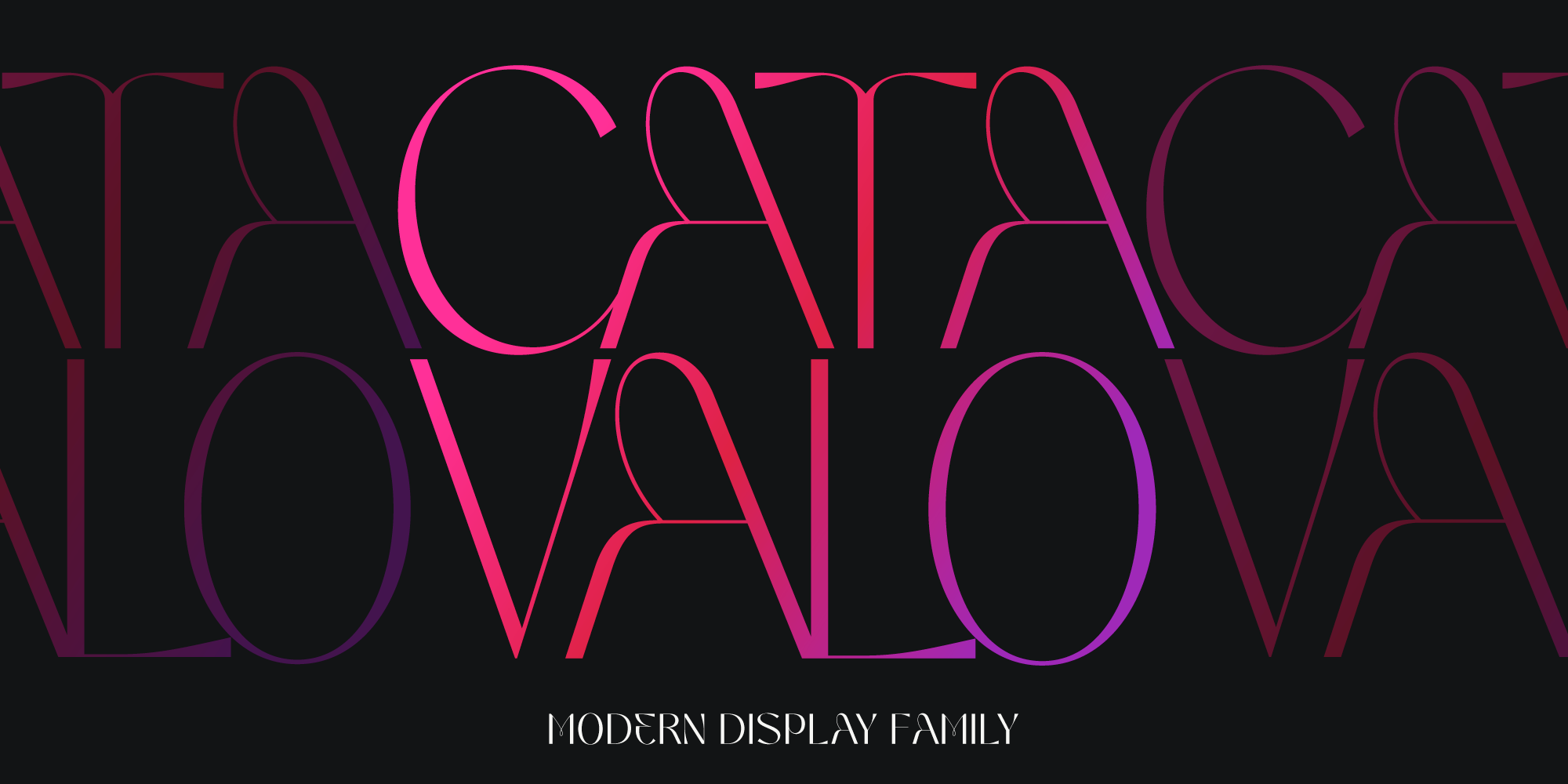
Catavalo Font is perfect for Spanish restaurant branding, flamenco dance studio promotions, Latin music venue signage, Mediterranean cruise marketing, Spanish wine labels, cultural heritage festivals, passionate tango advertisements, Iberian tourism campaigns, traditional tapas bar menus, and any project requiring fiery passion with Spanish cultural elegance and authentic Iberian sophistication.
What makes Catavalo Font exciting is its passionate intensity and Spanish cultural fire that embodies the romantic spirit of Iberian traditions and the vibrant energy of Mediterranean lifestyle. The typeface features dramatic, expressive letterforms with flowing curves and passionate details that evoke the rhythmic grace of flamenco dancers and the artistic beauty of Spanish calligraphy. Its fiery character design speaks to audiences who appreciate cultural authenticity, passionate expression, and the intoxicating allure of Spanish romance, making it perfect for brands seeking to communicate intensity, cultural pride, and the irresistible magnetism of Spanish culture that captivates hearts with its passionate artistry and timeless elegance.
Catavalo Font family includes regular, medium, and bold weights with complete character sets featuring uppercase and lowercase letters, Spanish-inspired numerals, passionate punctuation marks, and Iberian decorative elements. The typeface incorporates authentic Spanish design principles and Mediterranean aesthetic traditions that enhance its cultural accuracy while maintaining excellent readability across all Hispanic applications and Spanish-themed design projects.
Whether you're creating Spanish cultural branding, designing Mediterranean marketing materials, or developing passionate entertainment campaigns, Catavalo Font Free Download provides the perfect typographic foundation that honors Spanish heritage and Iberian artistry. The font's passionate appeal and cultural authenticity make it particularly effective for Spanish restaurants, flamenco studios, and Mediterranean lifestyle brands. Its fiery aesthetics translate beautifully across cultural signage, passionate publications, and digital platforms, ensuring your brand communicates the kind of authentic Spanish spirit and cultural intensity that resonates with those who appreciate Iberian passion and the captivating beauty of Spanish cultural traditions.